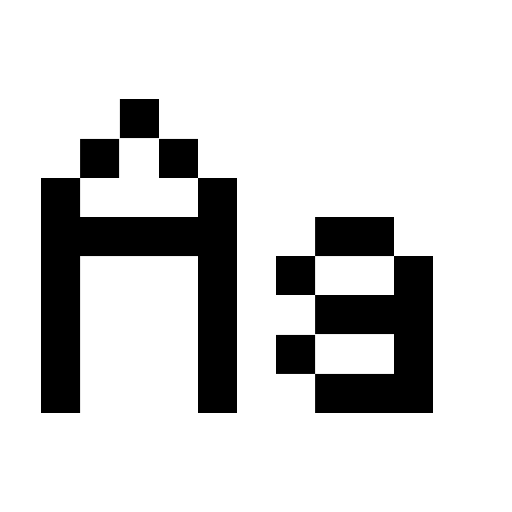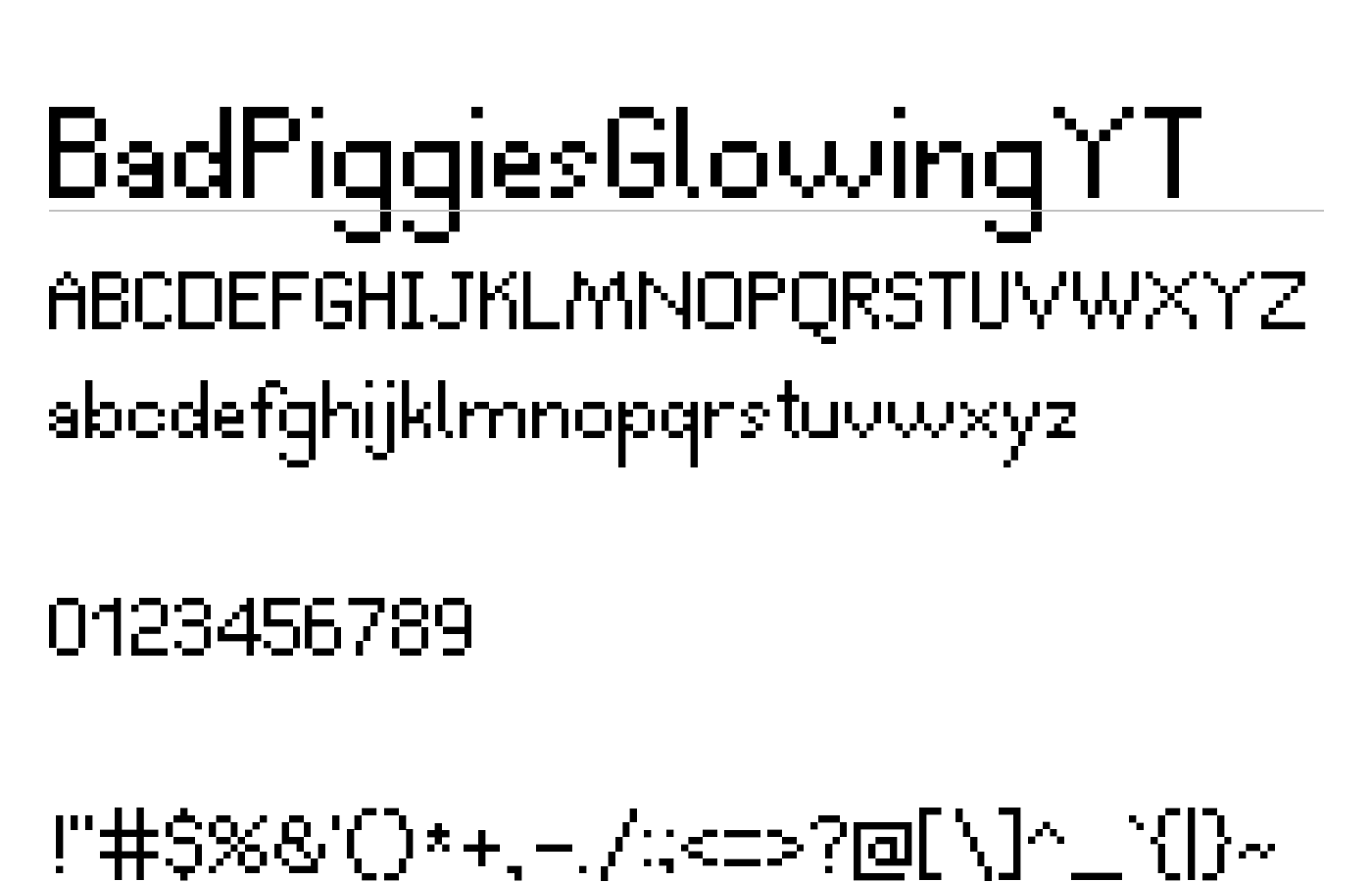
BadPiggiesGlowingYT is a pixel-style sans serif font characterized by its clean, blocky letterforms that evoke a retro digital or gaming aesthetic. With its uniform stroke weight and monospaced feel, it delivers a tech-inspired, playful vibe ideal for use in video game graphics, digital interfaces, or any project aiming for a nostalgic 8-bit look. This font works best for headlines, logos, and creative branding where a bold, pixelated style is desired.
BadPiggiesGlowingYT Font
About BadPiggiesGlowingYT Font
| Languages supported | Latin, Katakana, Symbols, Thai |